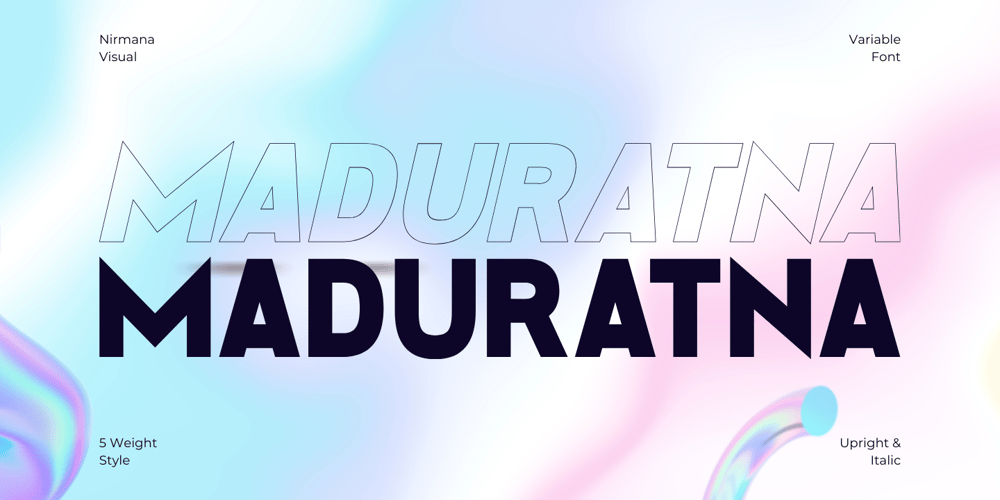
Maduratna Font Family was designed by Sigit Dwipa and published by Nirmana Visual. Maduratna contains 10 styles and family package options. Introducing our latest modern font collection, perfect for elevating your designs to the next level. Our collection features sleek and versatile typefaces that are ideal for a range of projects, from branding and advertising to editorial design and web design.Our fonts are carefully crafted to provide clean and minimalist lines, bold and stylish curves, and geometric shapes that give your designs a modern and contemporary look. With a range of styles and weights, our fonts are perfect for creating eye-catching headlines, branding materials, and commercial designs.